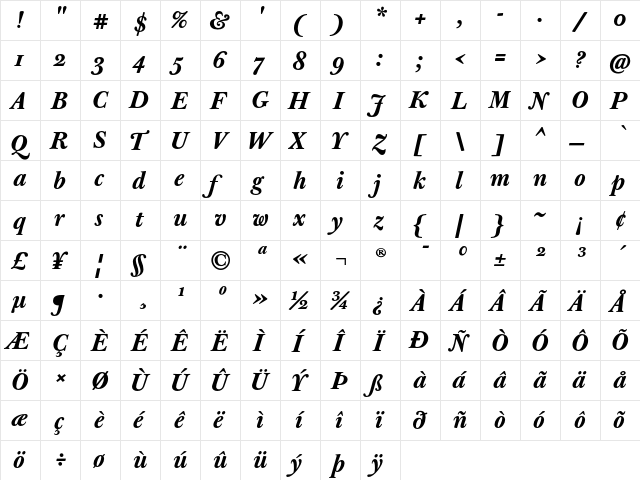
J Baskerville T Med Bold Italic Font Preview
Design Context for J Baskerville T Med Typeface
J Baskerville T Med takes a measured approach to typography — its balanced proportions and neutral character make it a reliable workhorse for both digital and print work. The slanted form adds forward momentum and visual energy. Its bold stroke weight gives it real presence on the page.
Pro Tip: Try J Baskerville T Med for annotation and caption copy alongside an upright companion — the contrast in angle creates a dynamic but ordered typographic system.